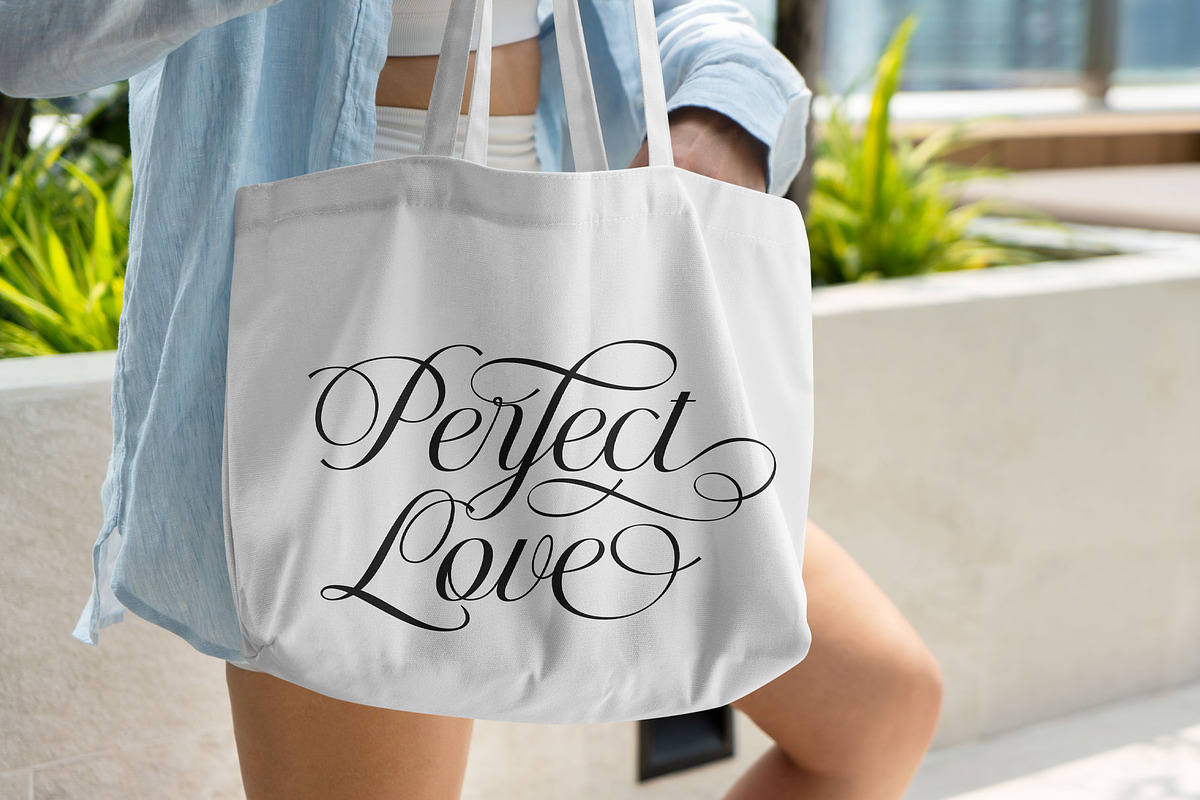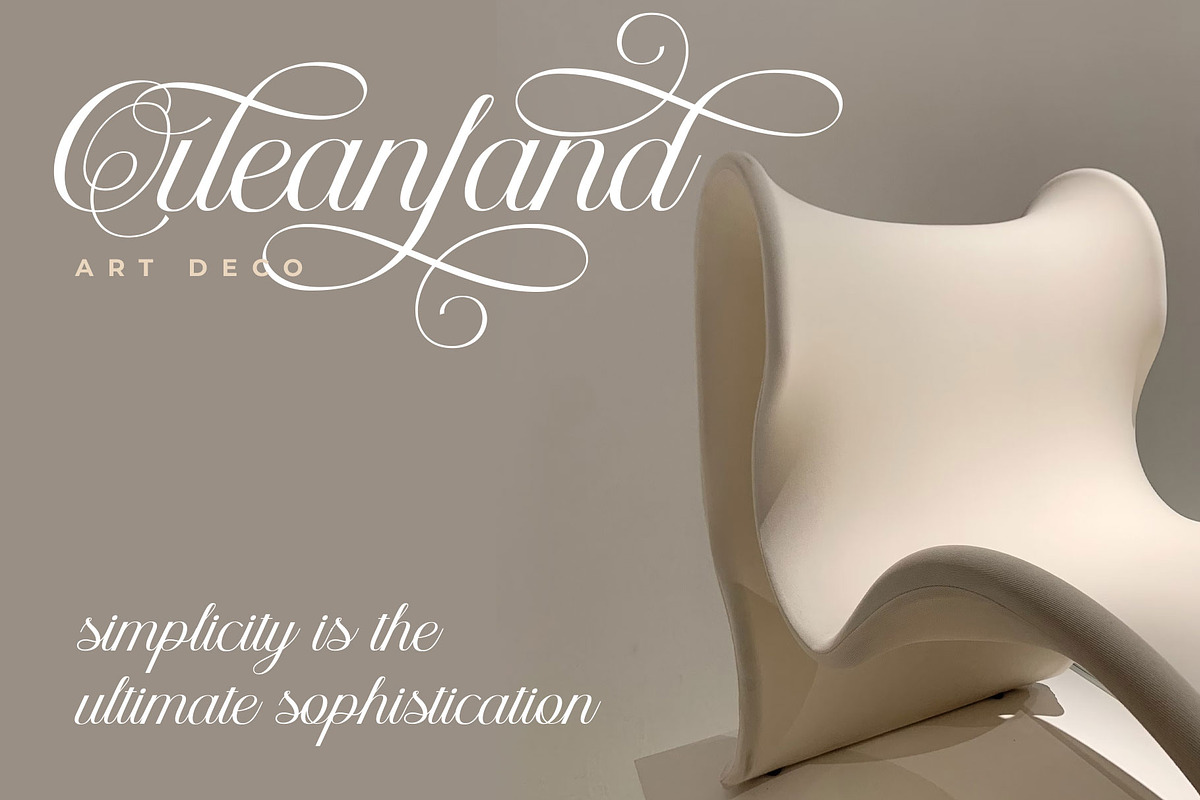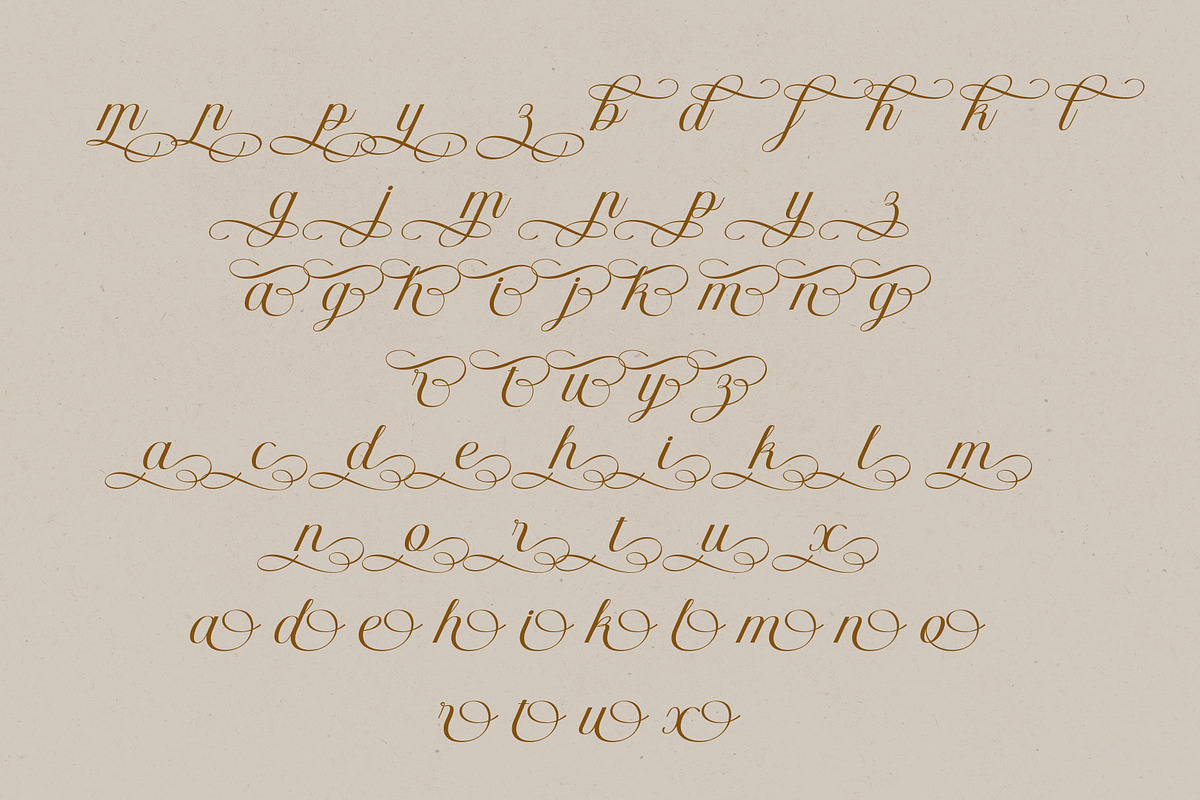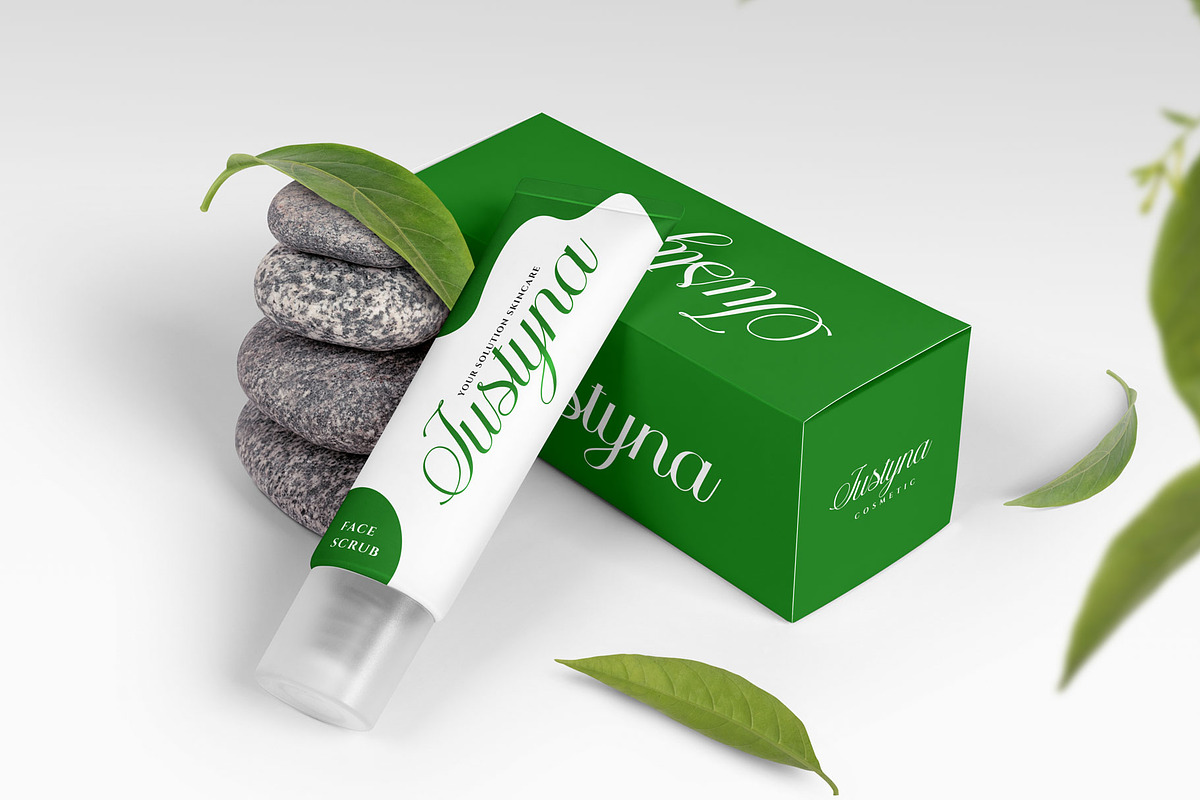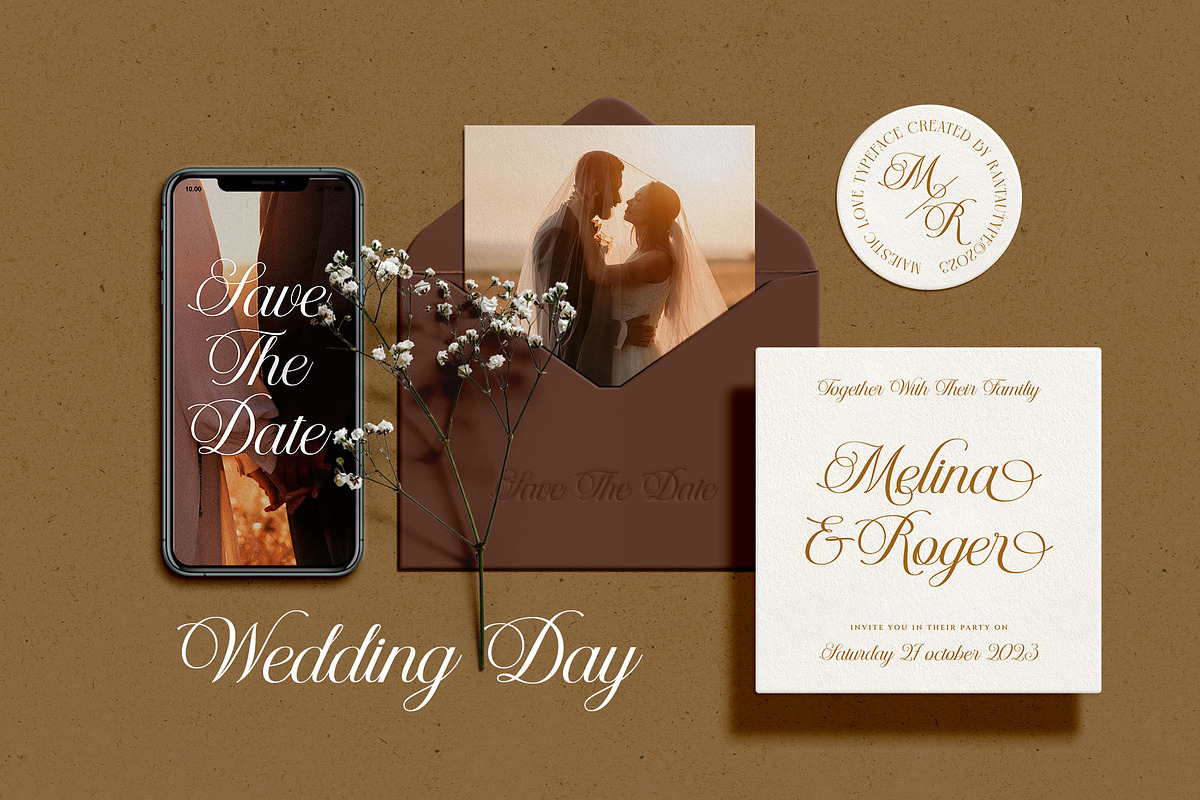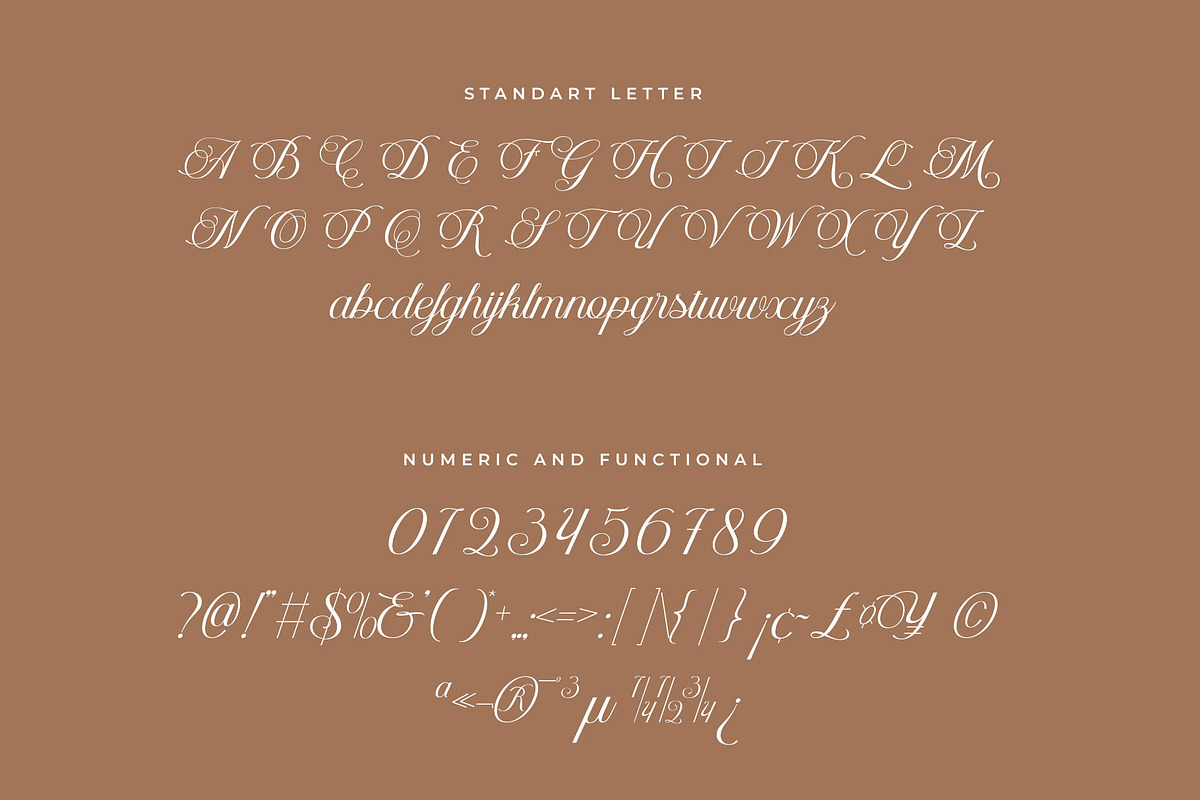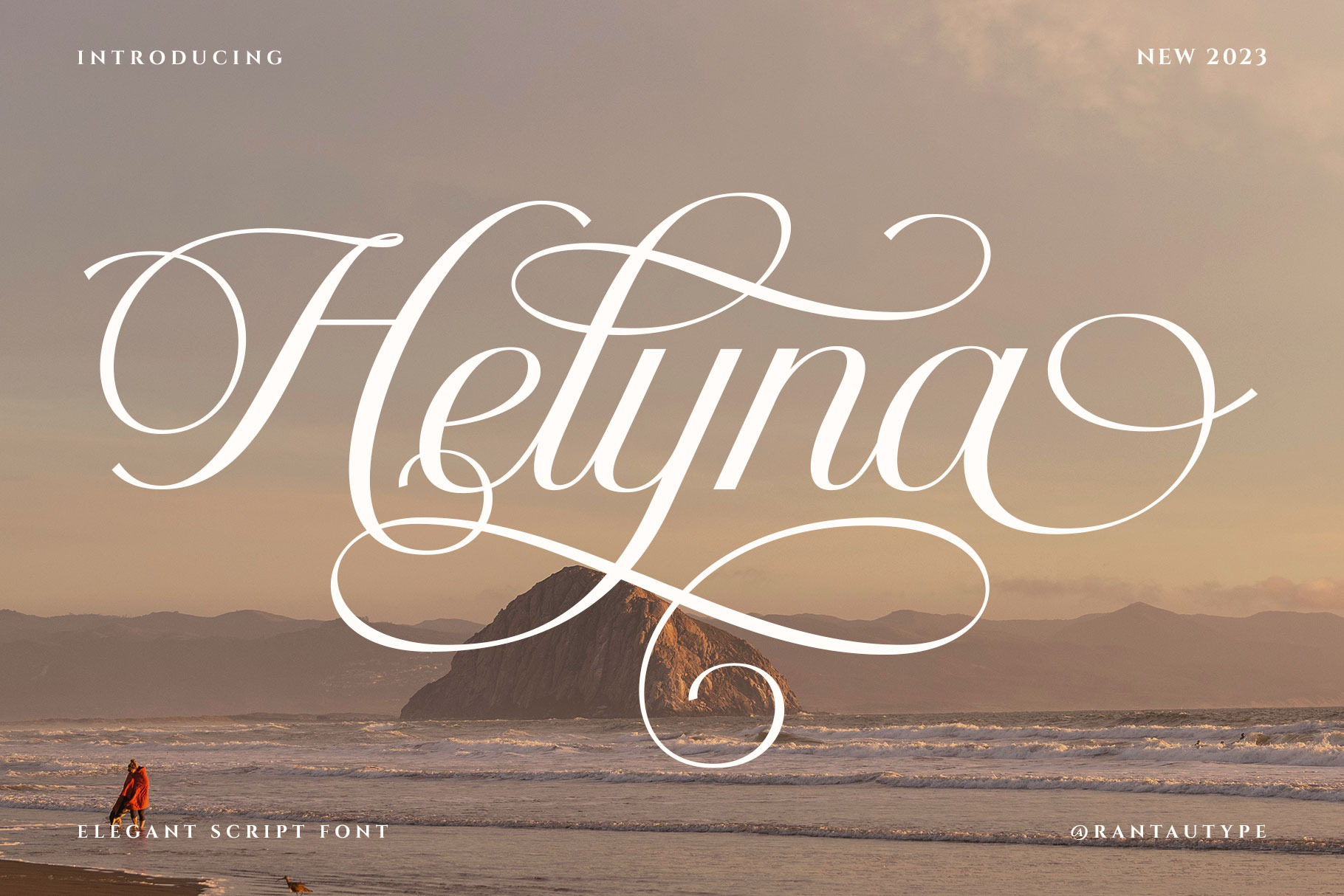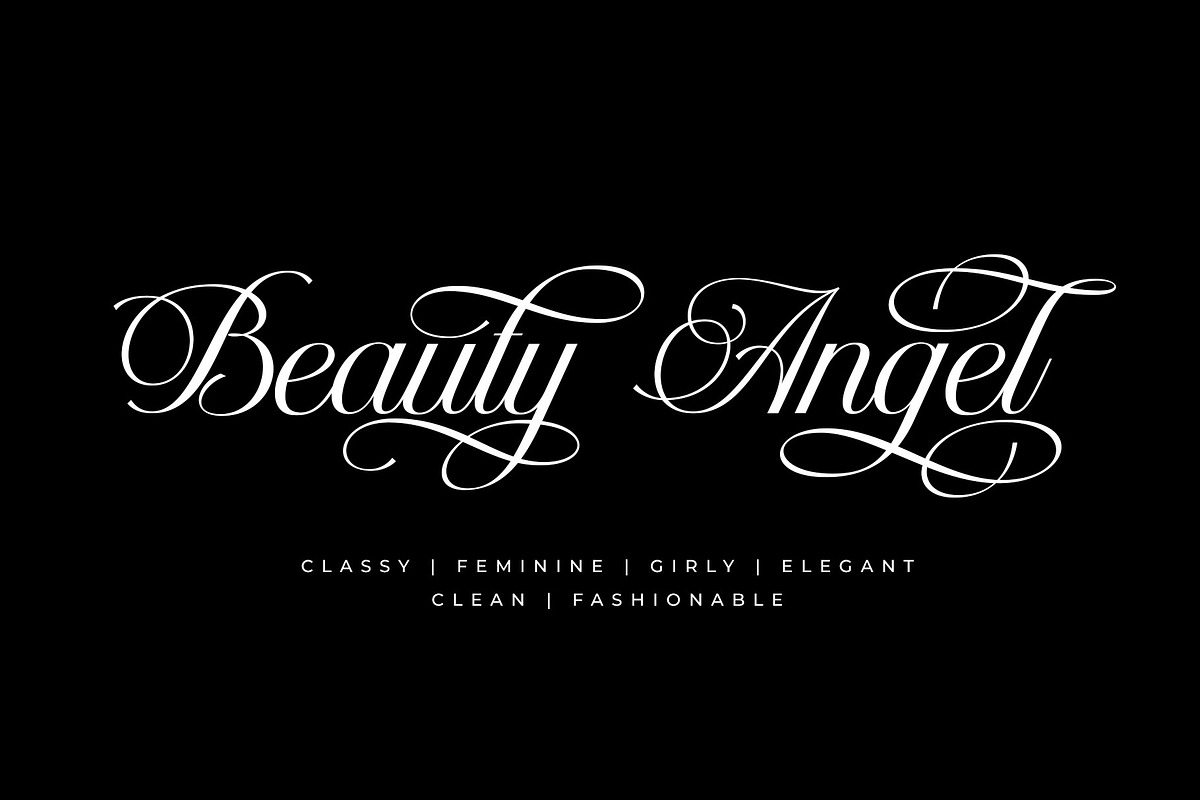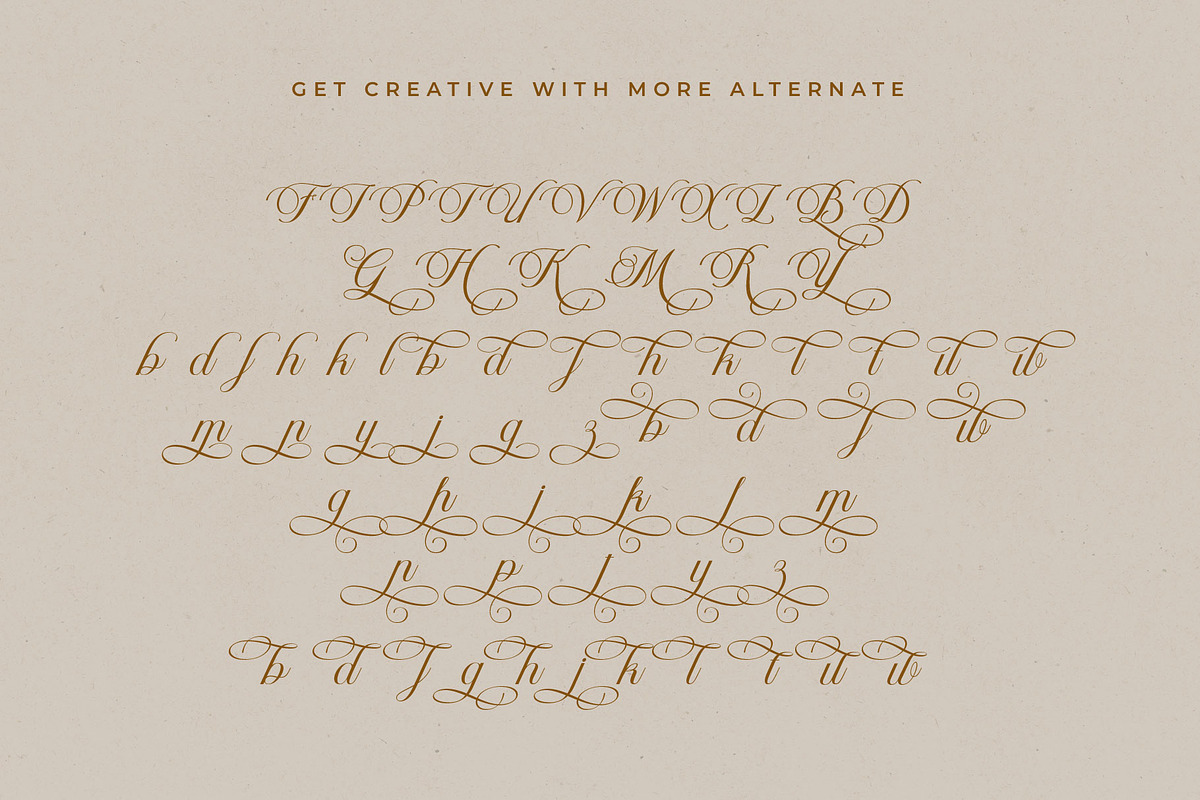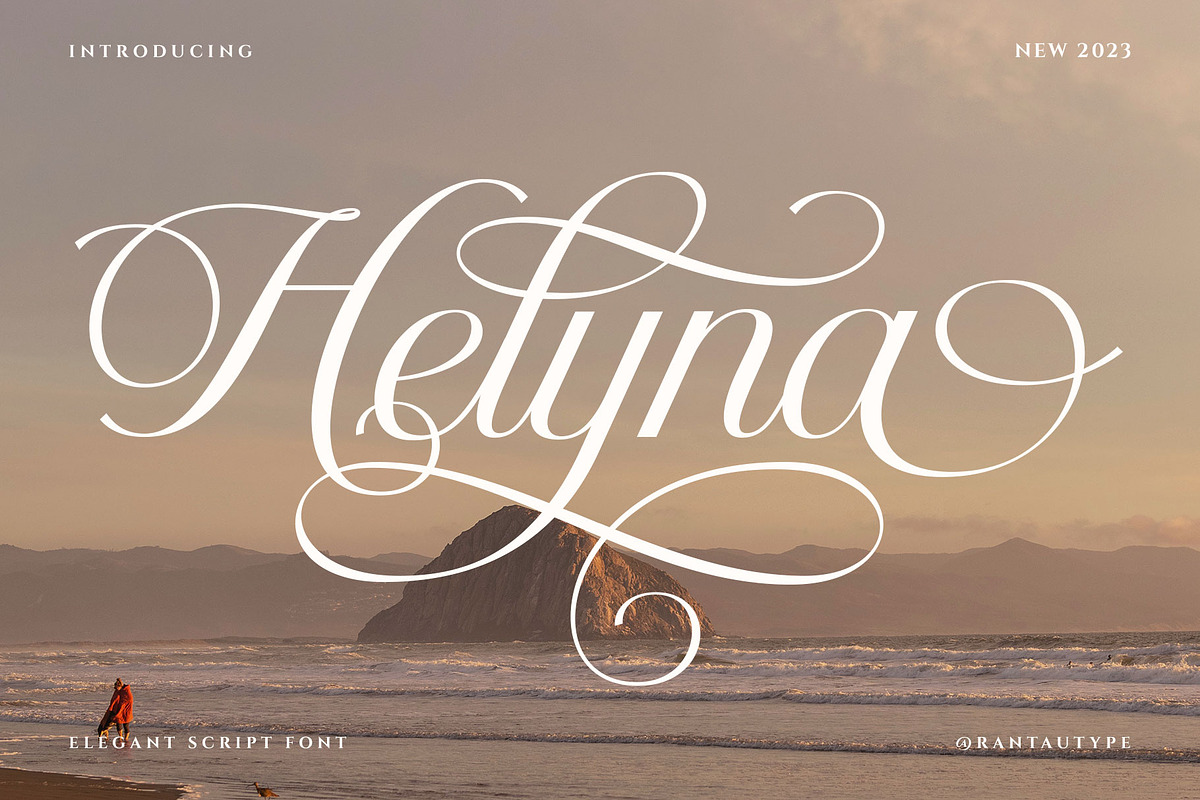
Helyna Elegant Script Font
Helyna is beautiful script font which can be interpreted professional with stylish and soft curve. We keep this font looks feminine, girly, modern, minimalist, elegant, readable, stylish, catchy and easy to use. Helyna come with ligature, alternate and multilingual support.
Helyna is a beautiful choice for any creative endeavor, chic, lifestyle design such as logos, title, watermark on photography, cover, branding, display and magazine, wedding event, quotes, album cover, business card, corporate, business project and many other design project. Helyna here to make your work to high level!!!
- Standar character A-Z and a-z
- Ligature and alternate
- Multilinggual support
- Opentype Feature